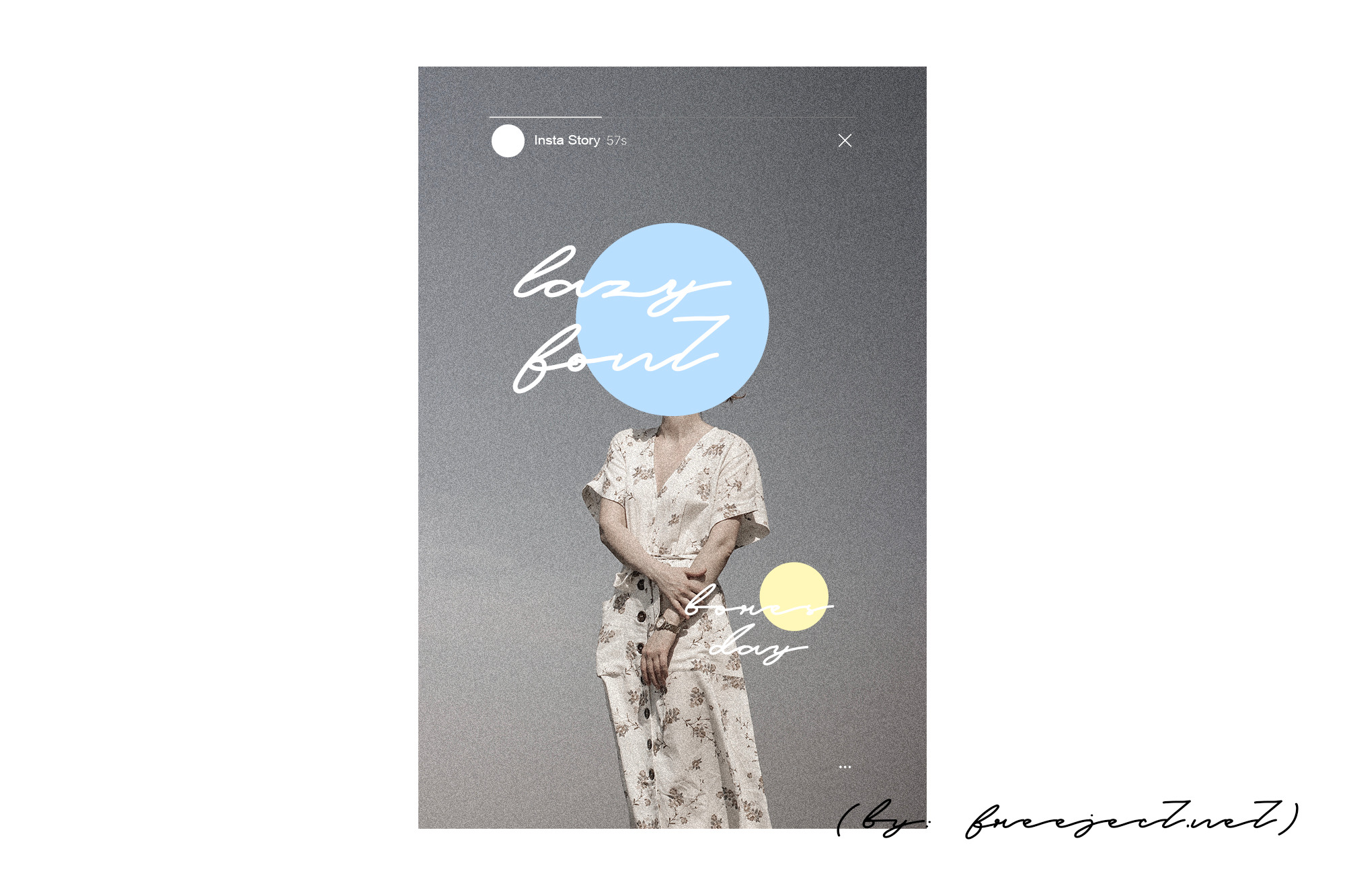
Tedless Handwritten Font
This tedless font is created with a distinctive handwritten style. This handwritten font you can use to create various designs. such as folk music album covers, Lofi, chill, etc. In addition to the cover art design, there are still many designs that you can create by utilizing this font.